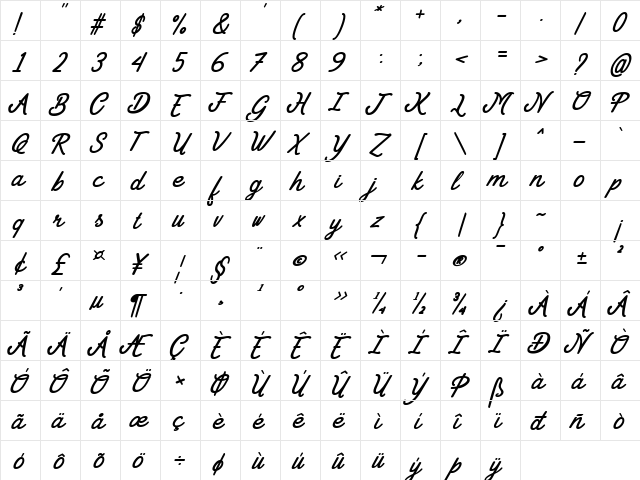
Goday Regular
| Foundry | 7NTypes |
| Designer | Andrian Dehasta; Situjuh Nazara |
Design Context for Goday Typeface
Goday is a composed and adaptable typeface that performs quietly and consistently across a wide range of design contexts.